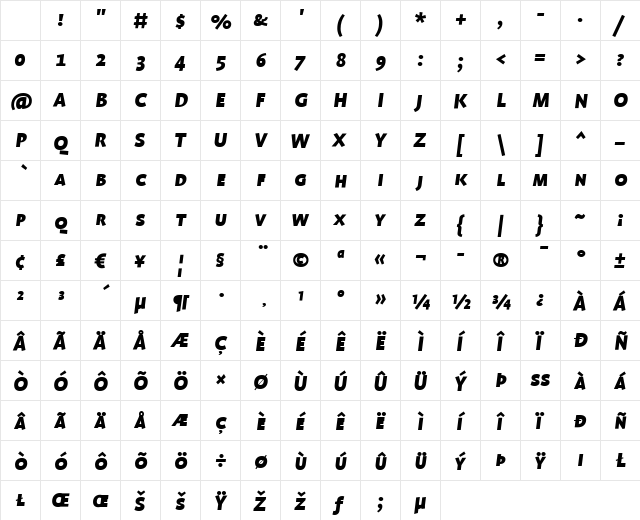
Complete ProfileSC Black Italic glyph index. Displaying only characters natively supported by ProfileSC Black Italic font.
ProfileSC is a composed and adaptable typeface that performs quietly and consistently across a wide range of design contexts. The slanted form adds forward momentum and visual energy.
Pro Tip: Use ProfileSC for emphasis, pull quotes, and subheadings where its slanted energy can add rhythm to the layout.